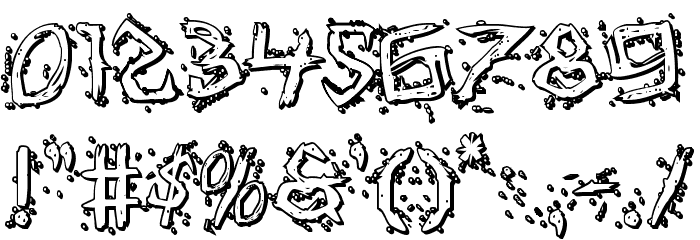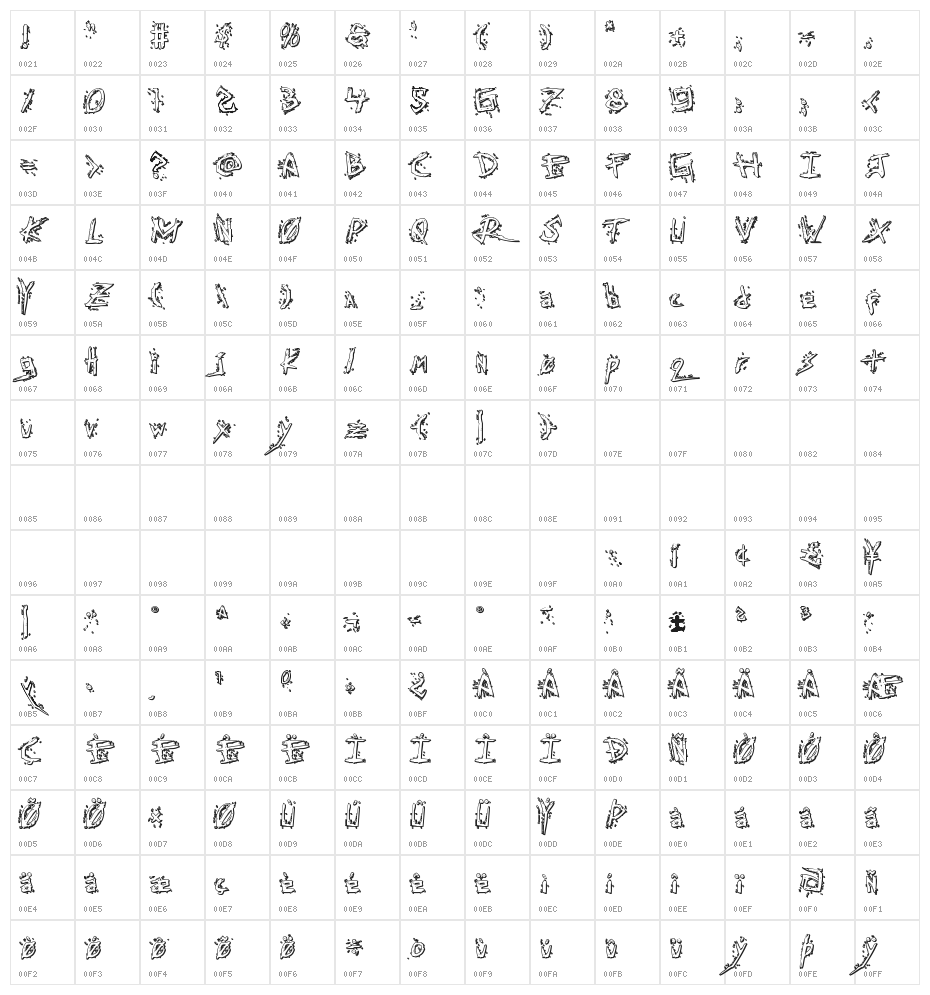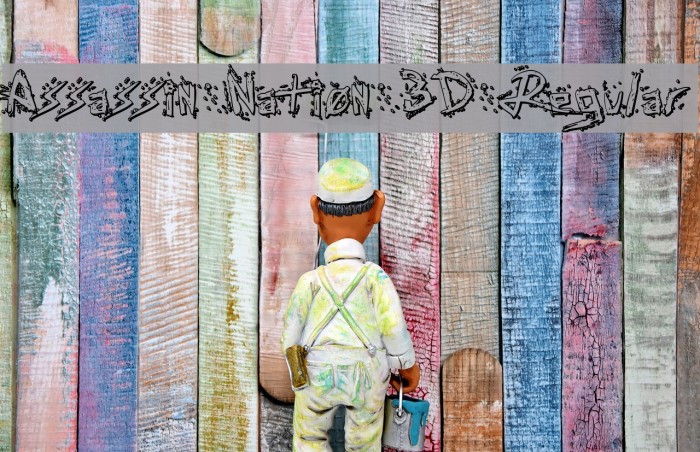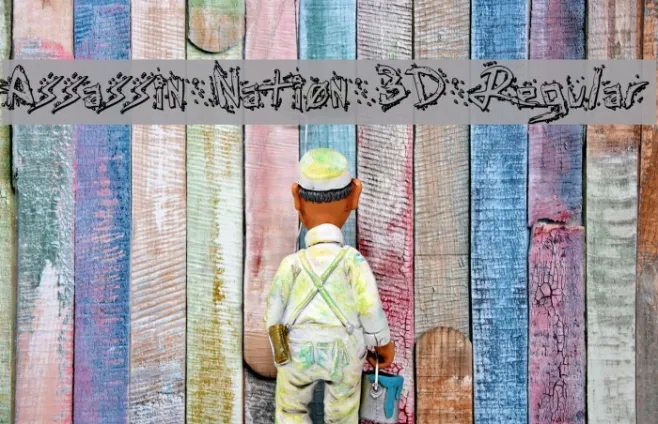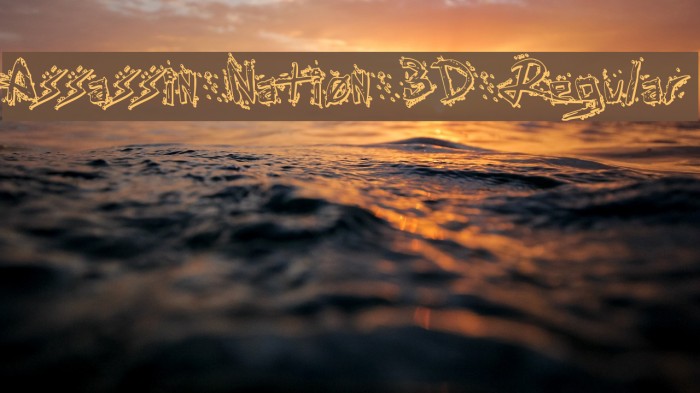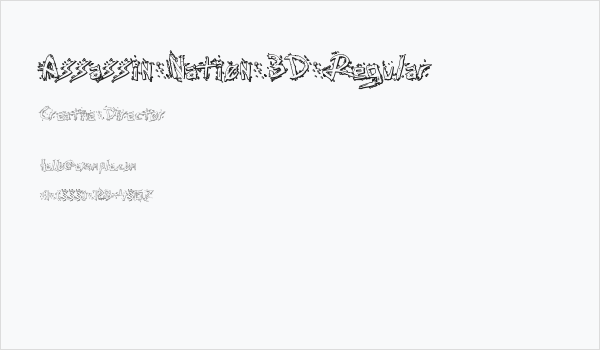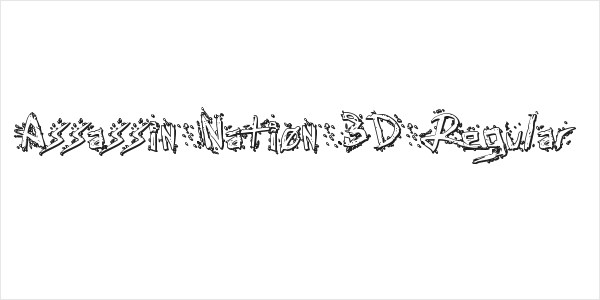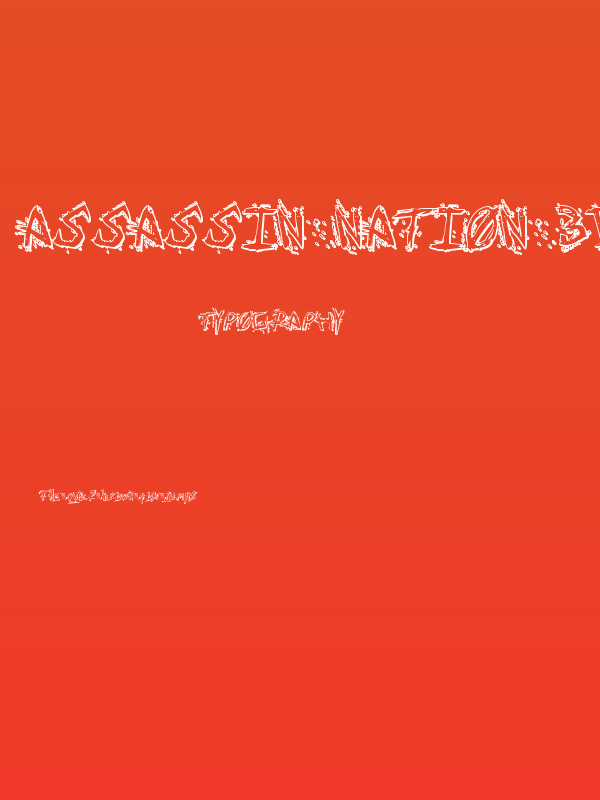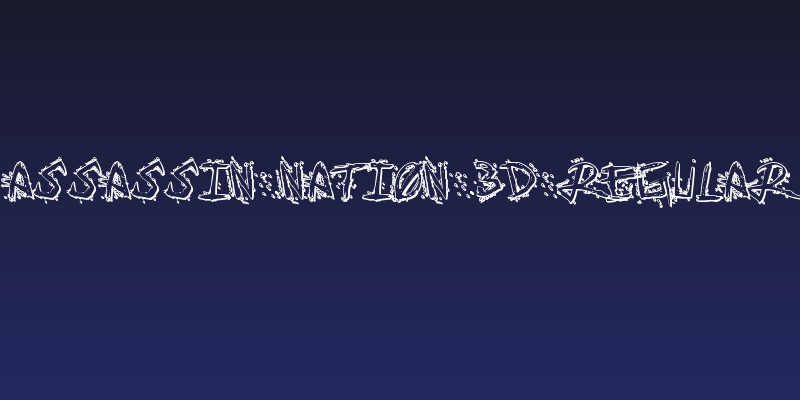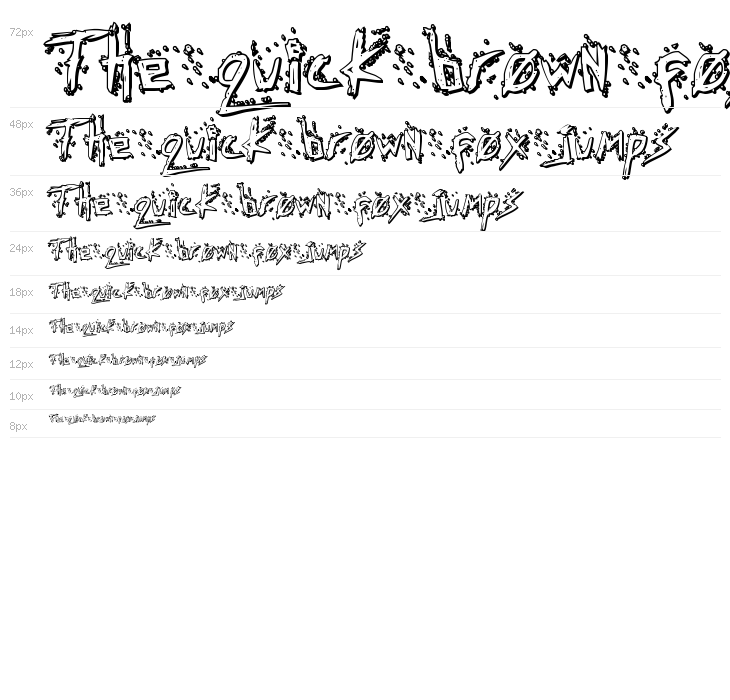
Assassin Nation 3D Regular Font
Assassin Nation 3D Regular Description
This font features a highly decorative and edgy style, characterized by its jagged, graffiti-like appearance. Each letter is uniquely crafted with a three-dimensional effect, giving it a dynamic and bold presence. The font is filled with intricate details and splatter-like elements that add to its chaotic and rebellious vibe. It maintains a consistent theme across uppercase, lowercase, numbers, and special characters, making it suitable for designs that require a strong, unconventional aesthetic. The font's irregular shapes and bold outlines make it stand out, perfect for projects that aim to capture attention and convey a sense of urban or alternative culture.
| Overall Style | Modern, Urban, Edgy |
| Proposed Projects | Ideal for album covers, streetwear branding, event posters, and urban-themed designs. |